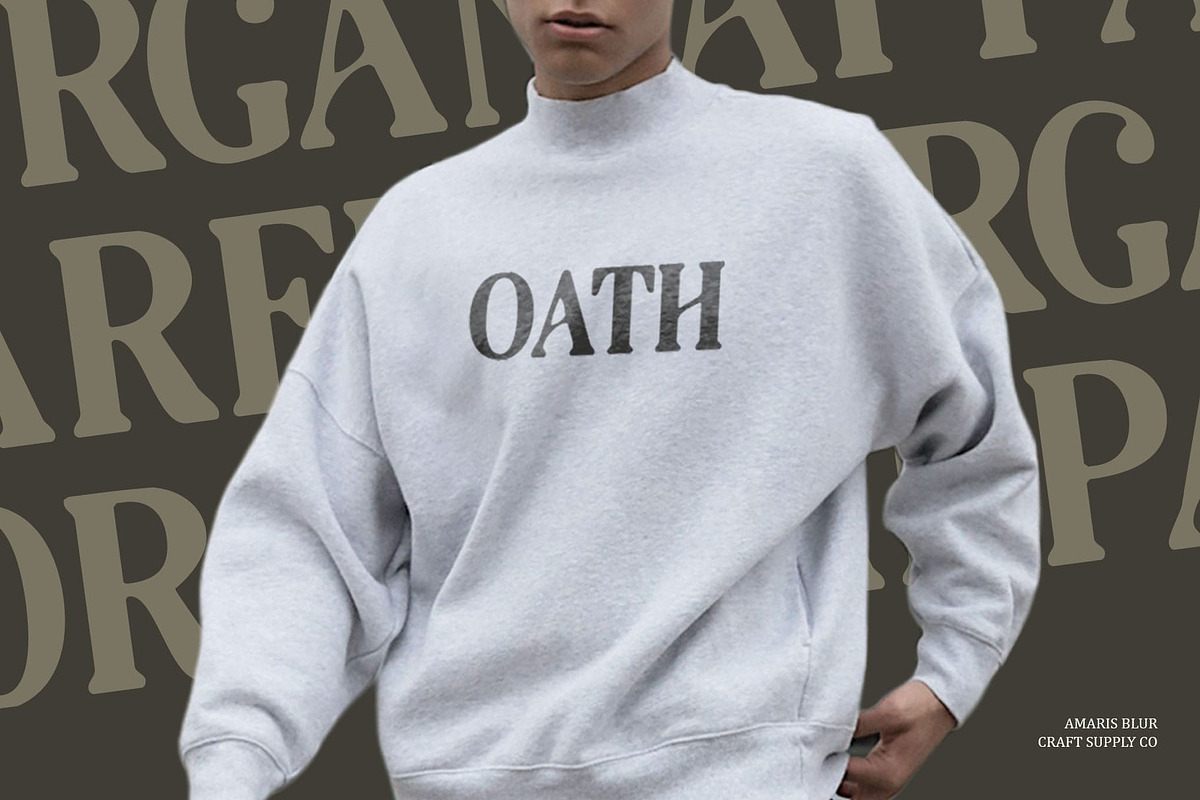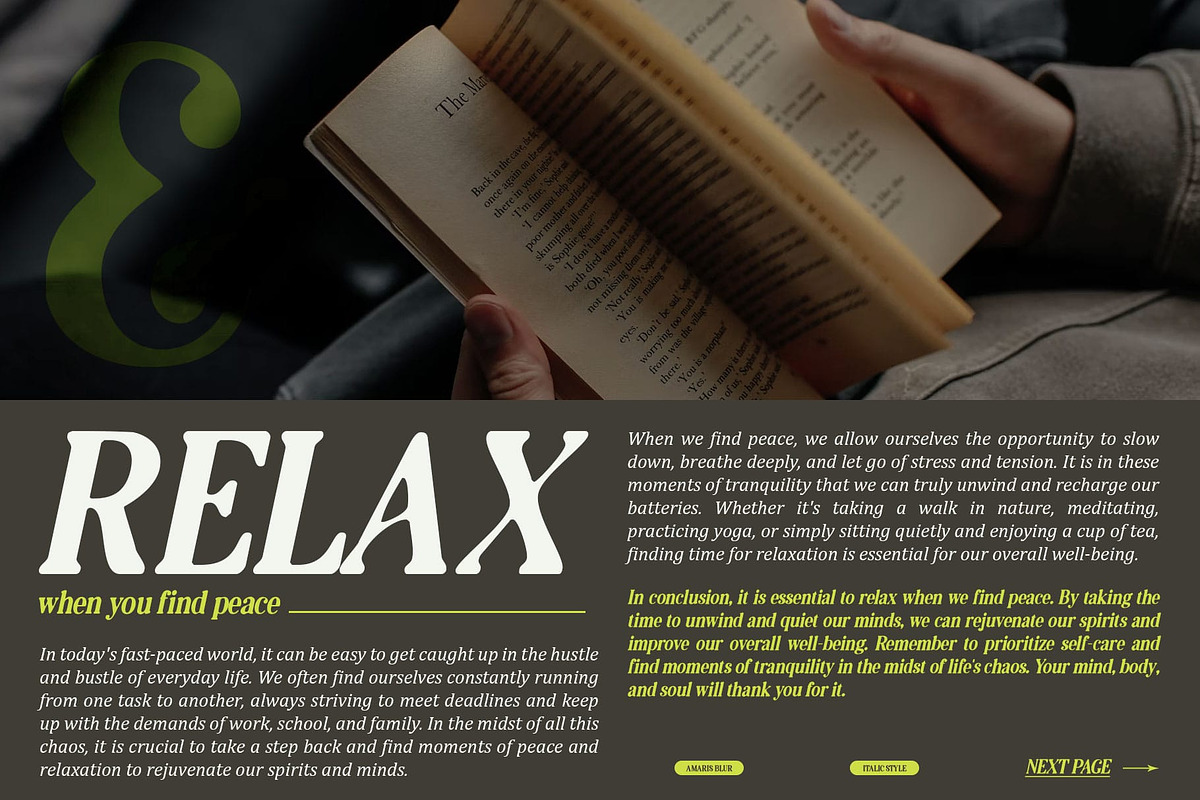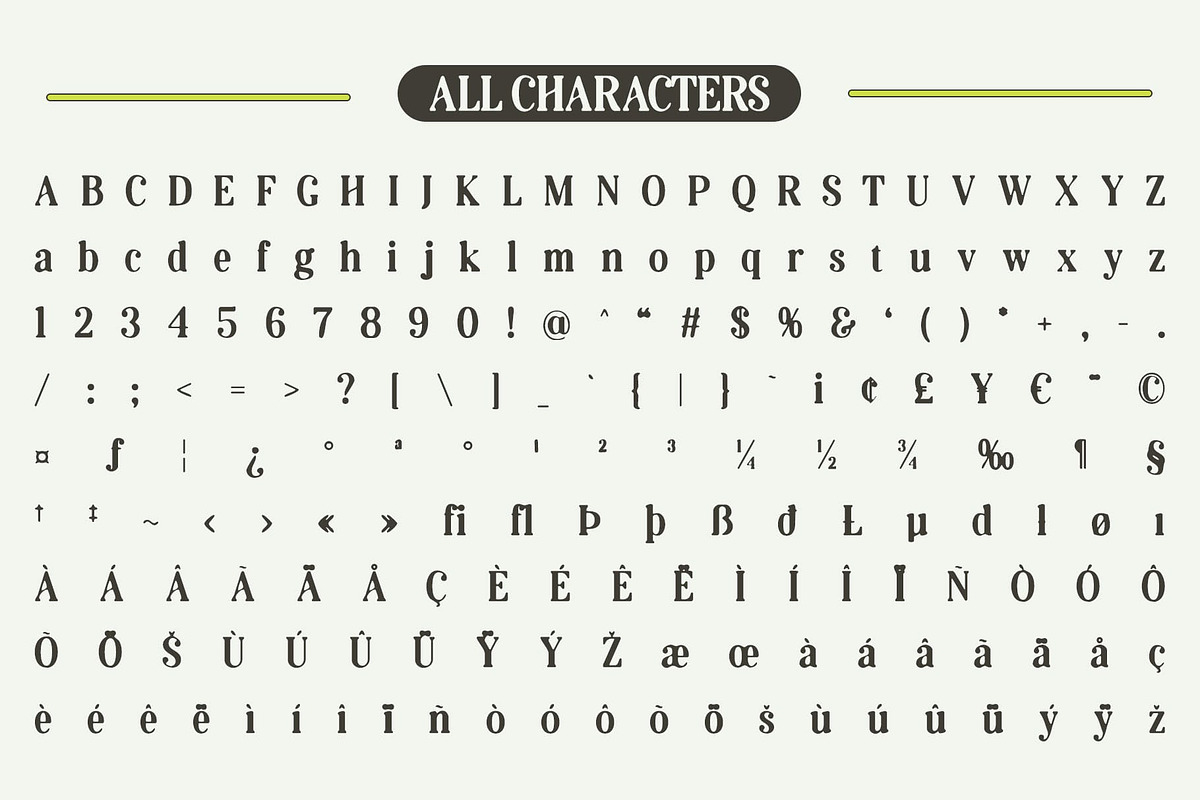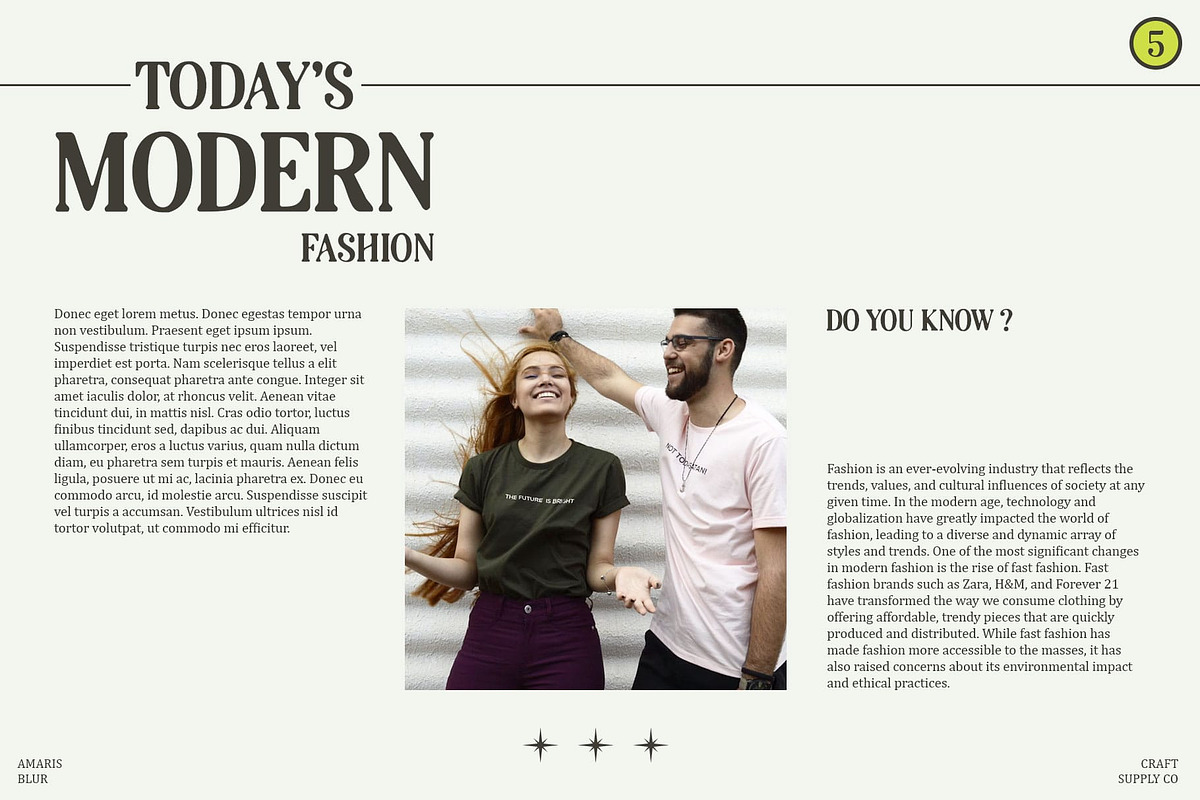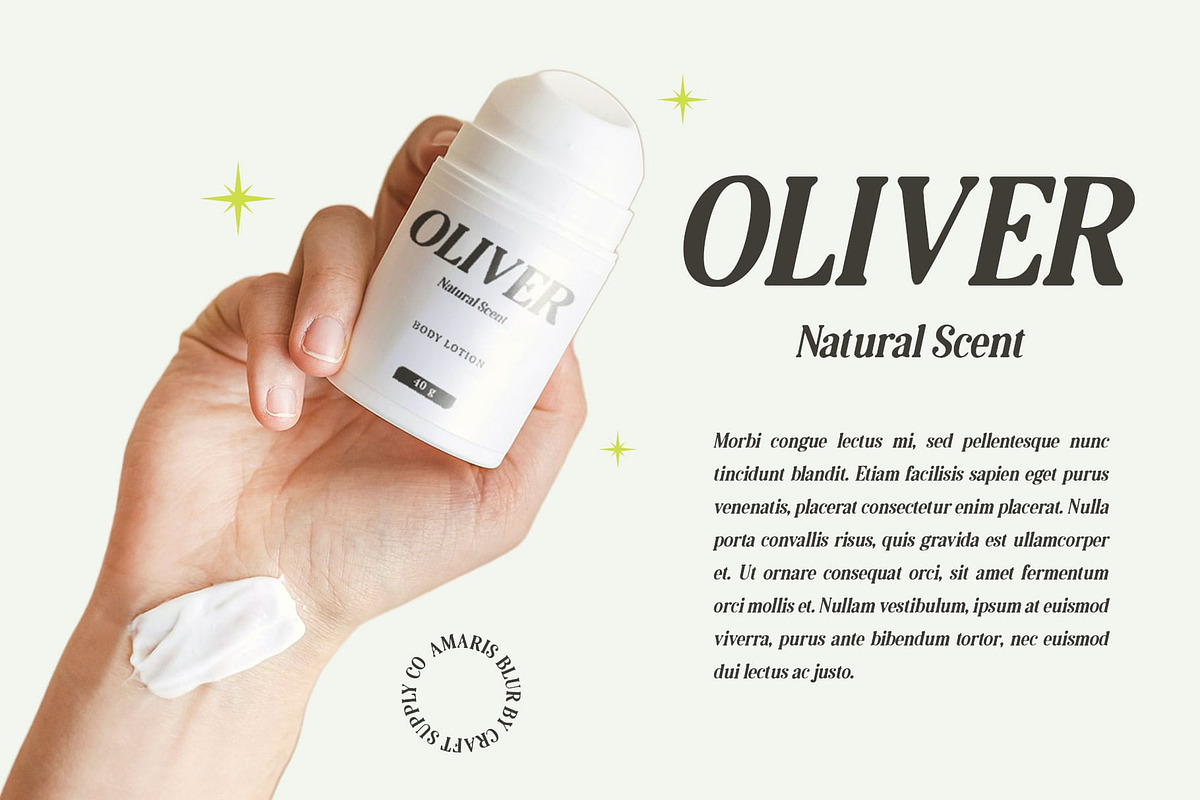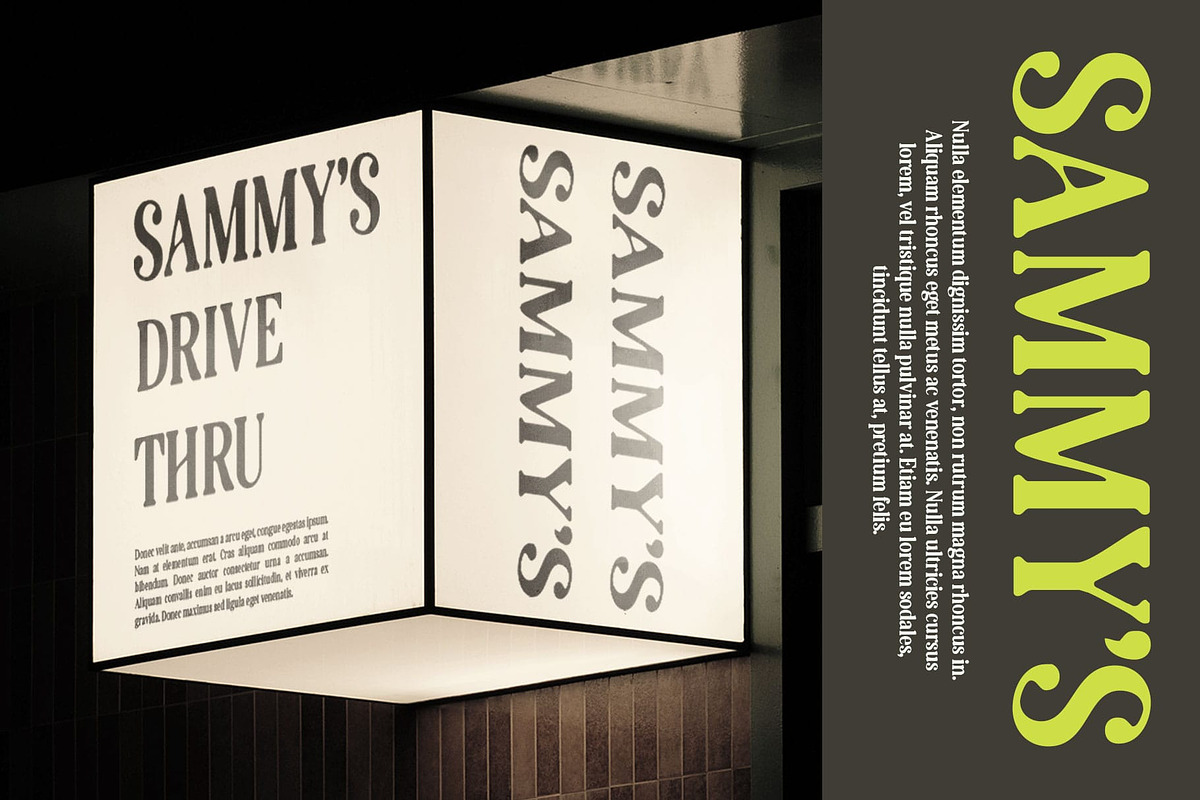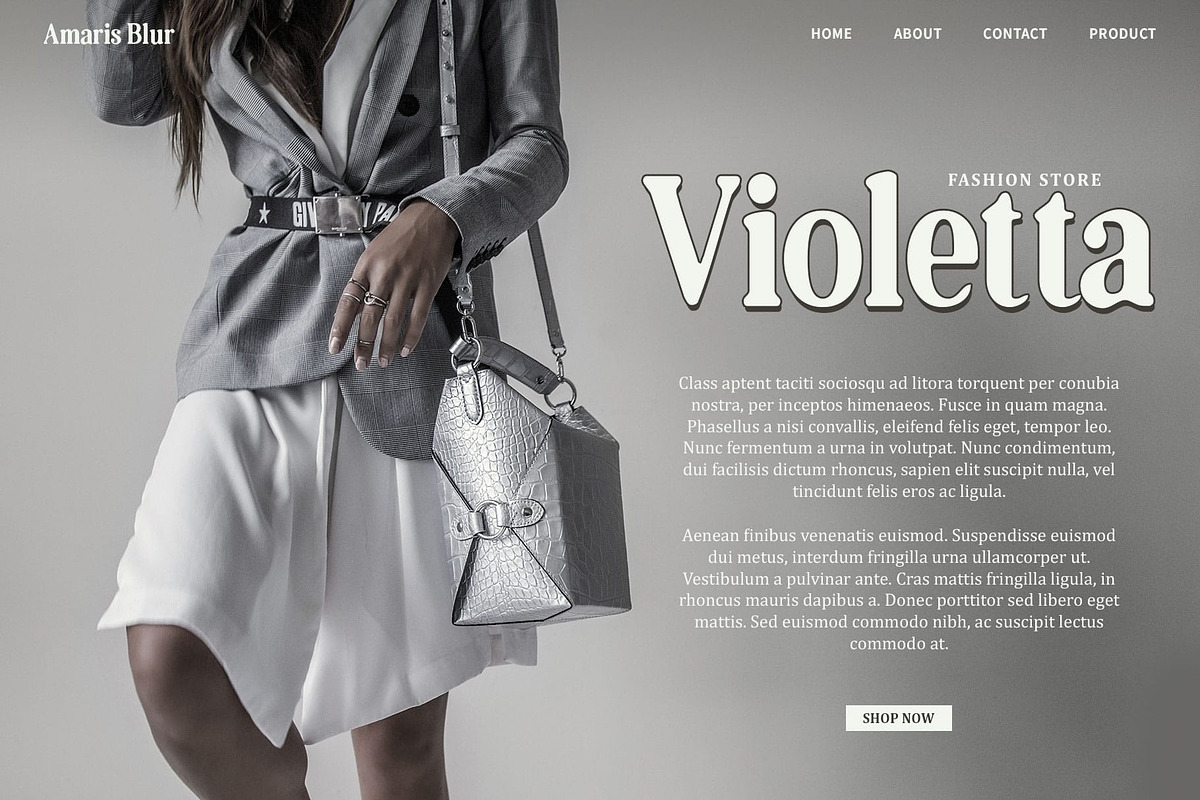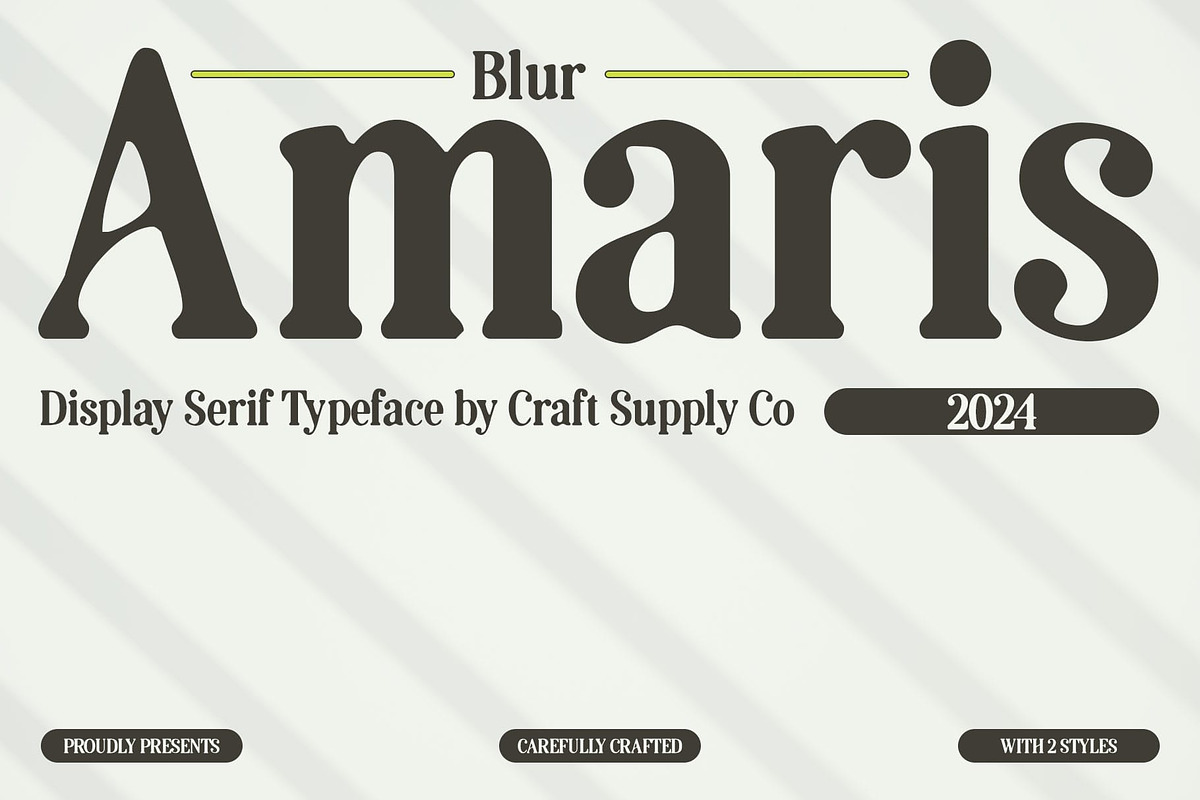
Amaris Blur
Amaris Blur: Classic Elegance with a Modern Twist
Classic Serif Font with Blur Effect Amaris Blur blends timeless elegance with a modern twist, featuring classic serif lines and a soft blur effect that adds a subtle artistic dimension. This font exudes a sophisticated and timeless appearance, ideal for designs that seek to harmonize classic beauty with contemporary aesthetics.
Artistic Blur Effect The blur effect in Amaris Blur softens the edges of its letters, creating an intriguing visual impression that enhances its elegance and charm. Perfect for applications like magazine layouts, books, invitations, and promotional materials, this font adds a unique and experimental touch to any design project.
Versatile Design Application With its blend of classic serif details and modern artistic flair, Amaris Blur offers versatility across various design contexts. Whether enhancing the pages of a luxurious magazine or elevating the elegance of event invitations, this font ensures a refined and captivating presentation.